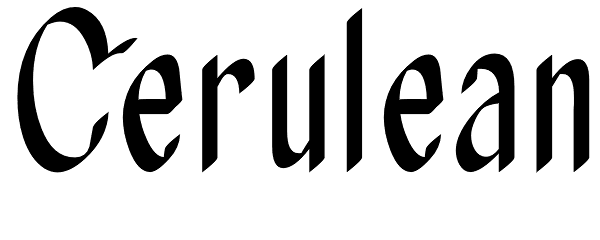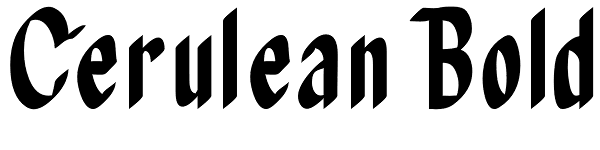
Cerulean
Cerulean echoes the elegant lines of an Old English typeface, but is pared down for versatility. The alternative characters, available in the swash version are intended to compliment the more legible regular style.